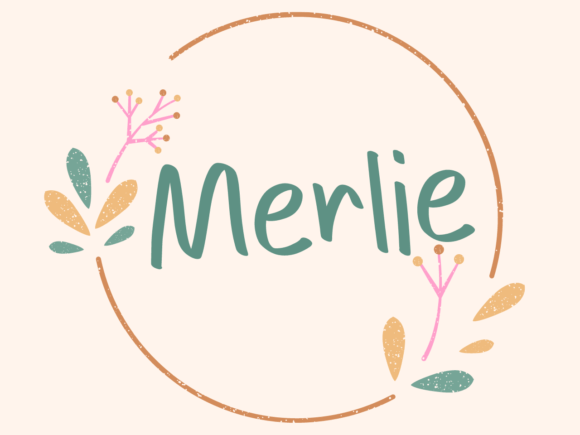
Behold Merlie Font, the quintessence of enchantment, a script font that captivates with its graceful strokes and timeless appeal. Journey through an era of elegance as Merlie Font transforms your designs into a realm of romanticism and allure. Whether you seek to craft wedding invitations imbued with old-world charm or branding that leaves an indelible impression, Merlie Font is your muse, your gateway to a world of aesthetic refinement.
With each letter meticulously crafted, Merlie Font exudes a sense of sophistication that elevates your designs to new heights. Its delicate curves dance across the page, inviting readers to lose themselves in a symphony of visual splendor. Whether you're designing logos, crafting social media posts, or creating marketing materials, Merlie Font is your artistic virtuoso, transforming ordinary words into an orchestra of visual delight.
Step into a realm where creativity knows no bounds as Merlie Font dances across your designs, painting a tapestry of elegance and charm. Let your imagination soar as this font guides you through a world of visual enchantment, where every project becomes a masterpiece. Embrace the allure of Merlie Font and unlock the door to a world where beauty reigns supreme.